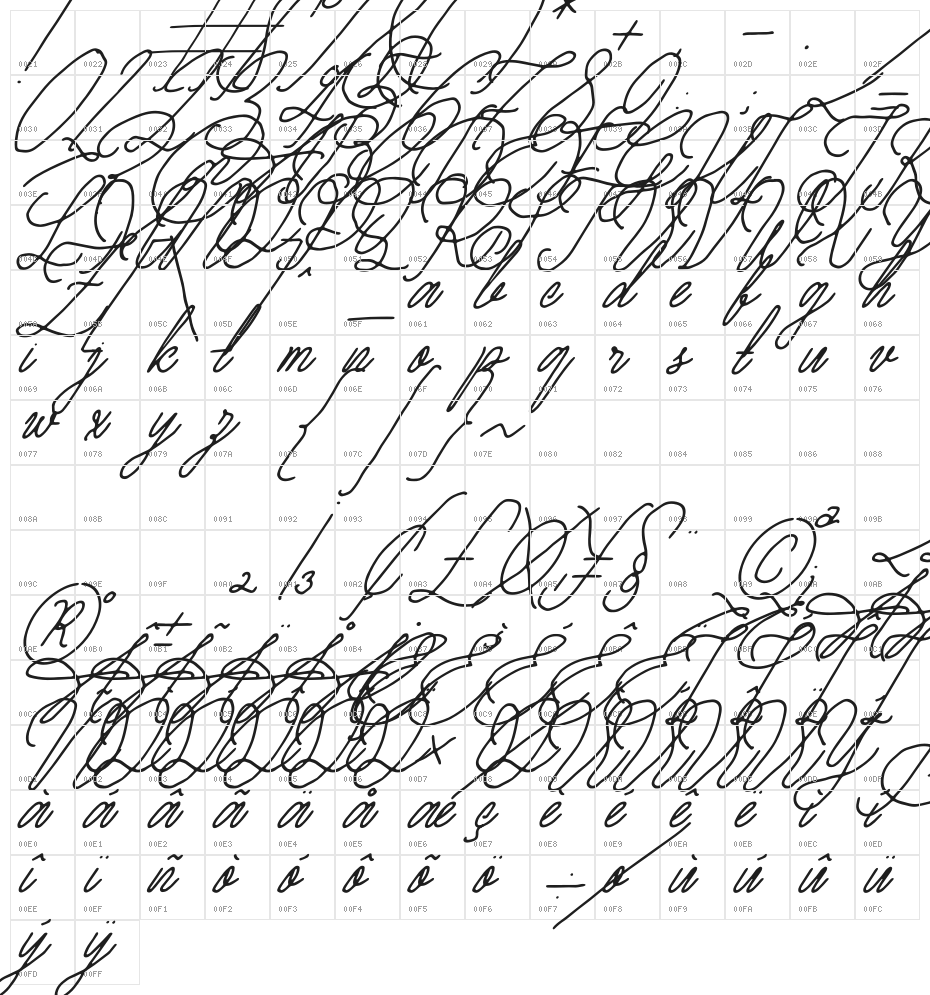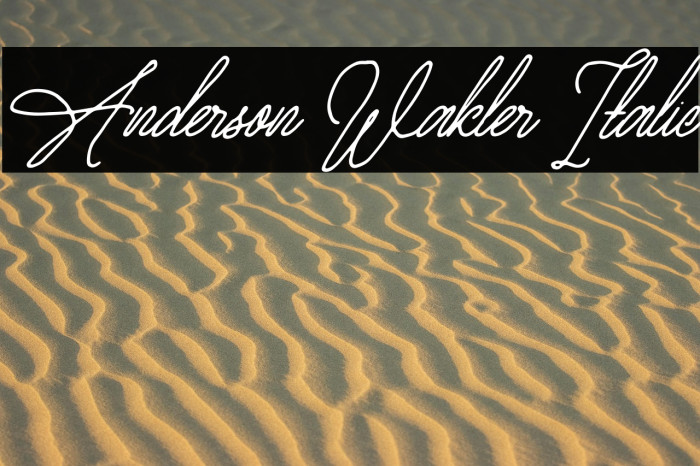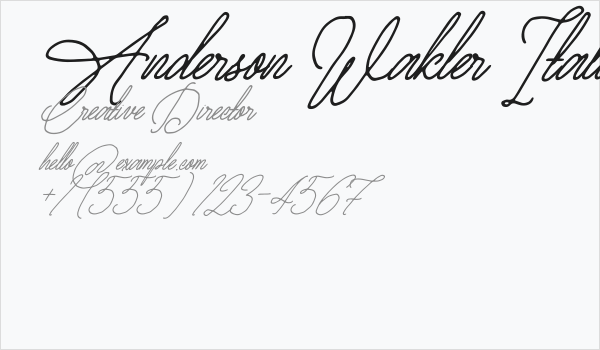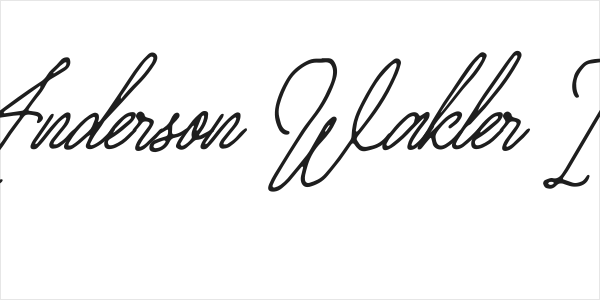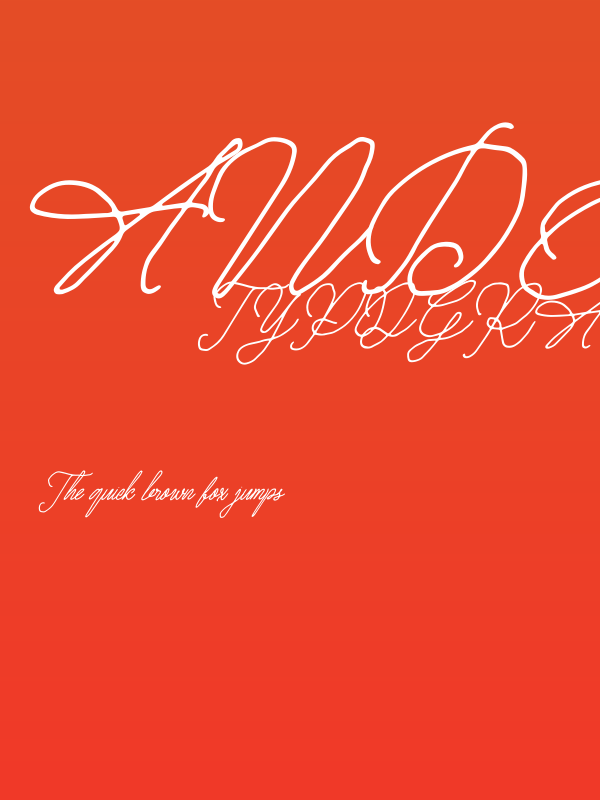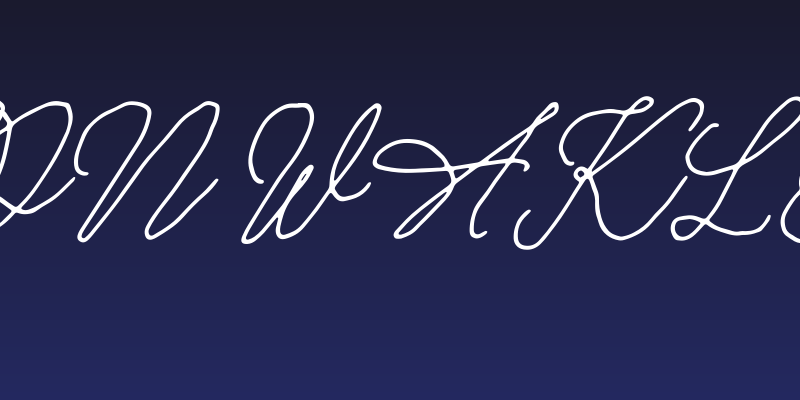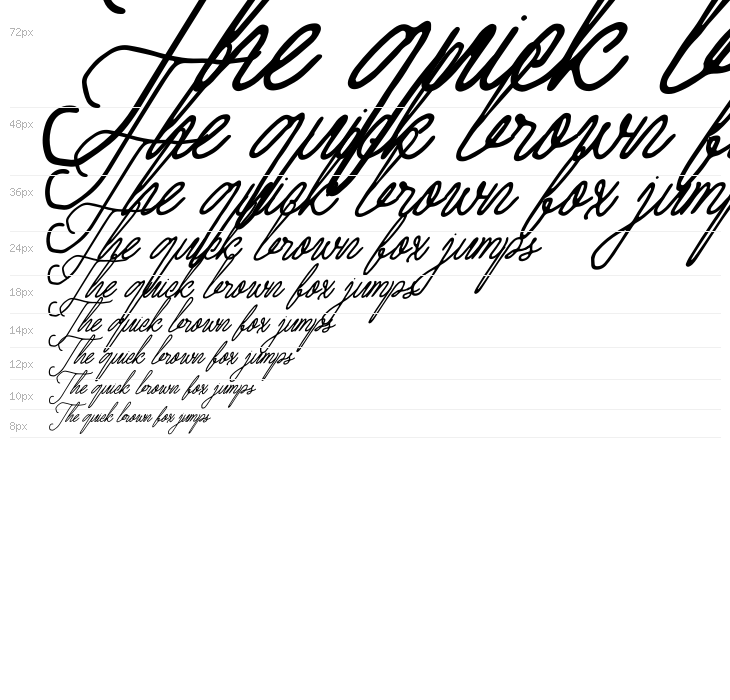
Anderson Wakler Italic Font
Anderson Wakler Italic Description
This elegant script font features fluid, cursive strokes that convey a sense of sophistication and grace. The uppercase letters are characterized by sweeping loops and flourishes, while the lowercase letters maintain a consistent flow with slightly exaggerated ascenders and descenders. The numerals are designed with a similar cursive style, maintaining the overall aesthetic. Special characters are seamlessly integrated, adding versatility to the font. The italic slant enhances the dynamic and flowing nature of the typeface, making it ideal for projects that require a touch of elegance and formality.